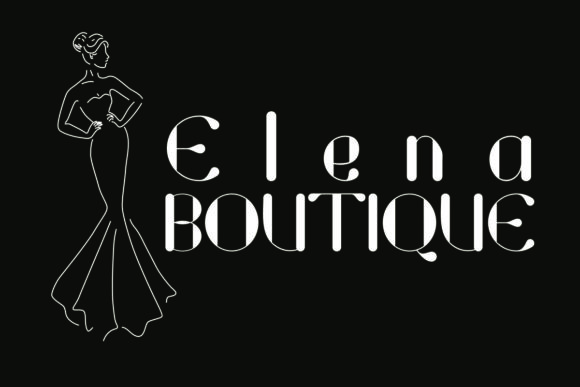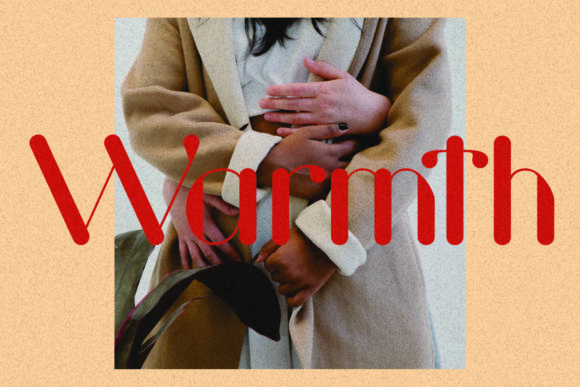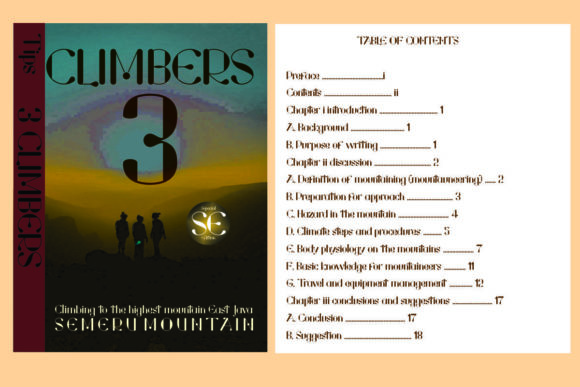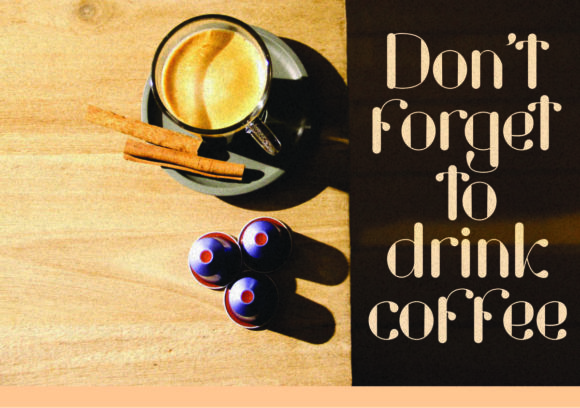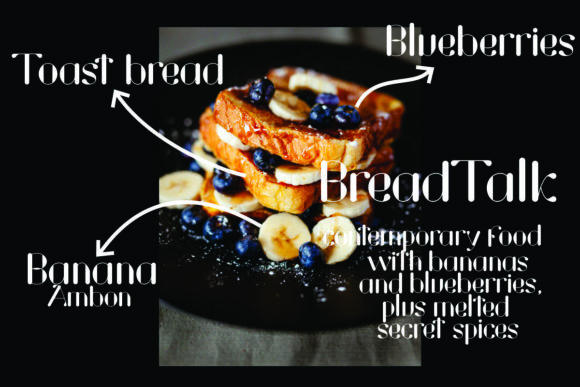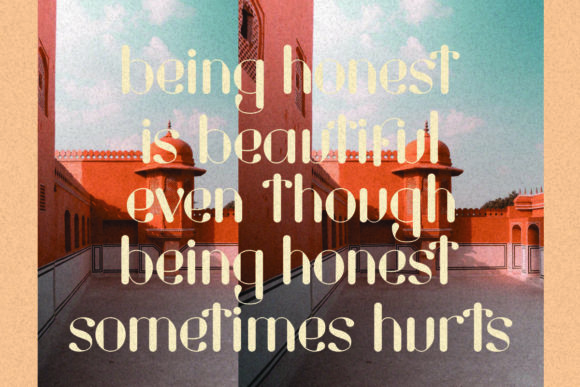
The Perfect Font for Your Creative Masterpiece
Have you ever stared at a blank page, struggling to find the perfect words to express your idea? You’ve brainstormed, sketched, and researched, but something’s still missing. The missing piece of the puzzle is often a font that captures the essence of your vision.
Enter the Ballearic Island Font, a vintage-styled display font that’s about to become your new best friend. This stunning font is designed to elevate any creation, whether it’s a bold graphic, a whimsical illustration, or a sophisticated headline. With its unique blend of style and sophistication, the Ballearic Island Font is an invaluable asset to any designer’s library.
Whether you’re a seasoned pro or a design newbie, the Ballearic Island Font is sure to bring a touch of magic to your next project.
Ballearic Island Font Key Features
- Font Family: Ballearic Island Font is a unique, modern sans-serif font designed for digital use.
- Unique Characteristics: The font features a distinctive, hand-crafted design with subtle flair and rounded edges, making it perfect for creating visually appealing and modern designs.
Designer Review: Ballearic Island Font
Overall, I think the Ballearic Island Font has a lot going for it. The first thing I noticed was the unique and playful vibe it gives off. The font is a perfect blend of modern and traditional elements, making it a great choice for designers looking for something that’s a bit off the beaten path. ✨ The letterforms are well-balanced and easy to read, even at smaller sizes.
One of the things I appreciate about this font is its versatility. It’s suitable for a wide range of projects, from branding and advertising to digital products and publications. The font’s ability to work well in both print and digital formats is a major plus. ✨ The font also includes a range of weights and styles, making it easy to create a consistent visual identity.
- ⚠️ The font’s legibility can be a bit compromised at very small sizes, making it less suitable for body text.
- ⚠️ The font’s ornate details may not be suitable for projects where a more minimalist aesthetic is required.
In conclusion, the Ballearic Island Font is a solid choice for designers looking for a unique and versatile font. While it may have some limitations, its strengths make it a great addition to any design toolkit. With a bit of care and attention to detail, this font can help take your designs to the next level.
Here are some tips to get the most out of the Ballearic Island Font:
- Use it in conjunction with other decorative fonts for a unique look.
- Pair it with a bold font for maximum impact.
The Ballearic Island Font is perfect for:
- Travel and tourism marketing.
Comparison: Great Vibes Font is more refined and polished, while Ballearic Island Font has a more casual, handwritten feel.